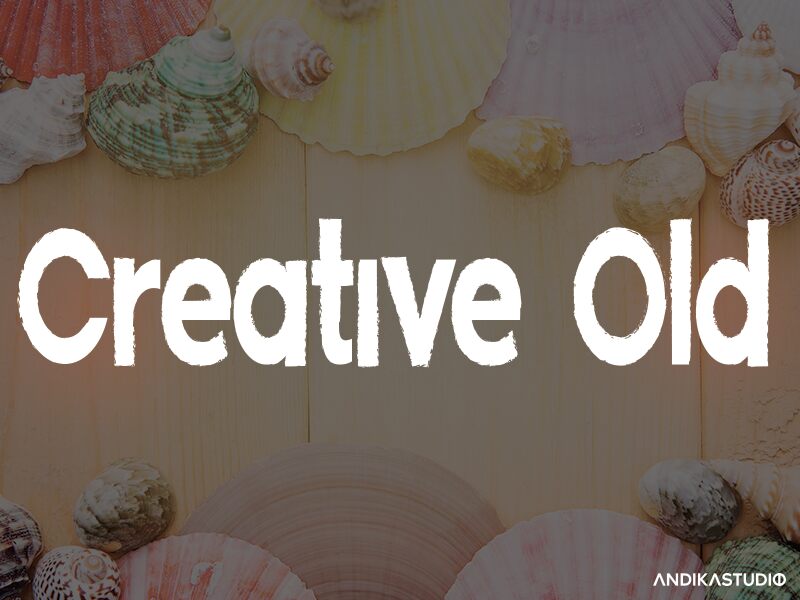
CreativeOld
Creative Old, designed by the talented Lontong Lodeh, is a display font that brings a playful and vintage touch to any project. With its comic eroded style, this semi-bold typeface adds character and personality to designs with its rough edges and distressed lines. The semi-condensed width makes it suitable for headlines and titles in various creative projects such as retro posters, comics, packaging design, or even children's books. Whether you're looking for a fun and unique font for your business logo or trying to add some charm to your website design, Creative Old is sure to stand out and make a lasting impression.